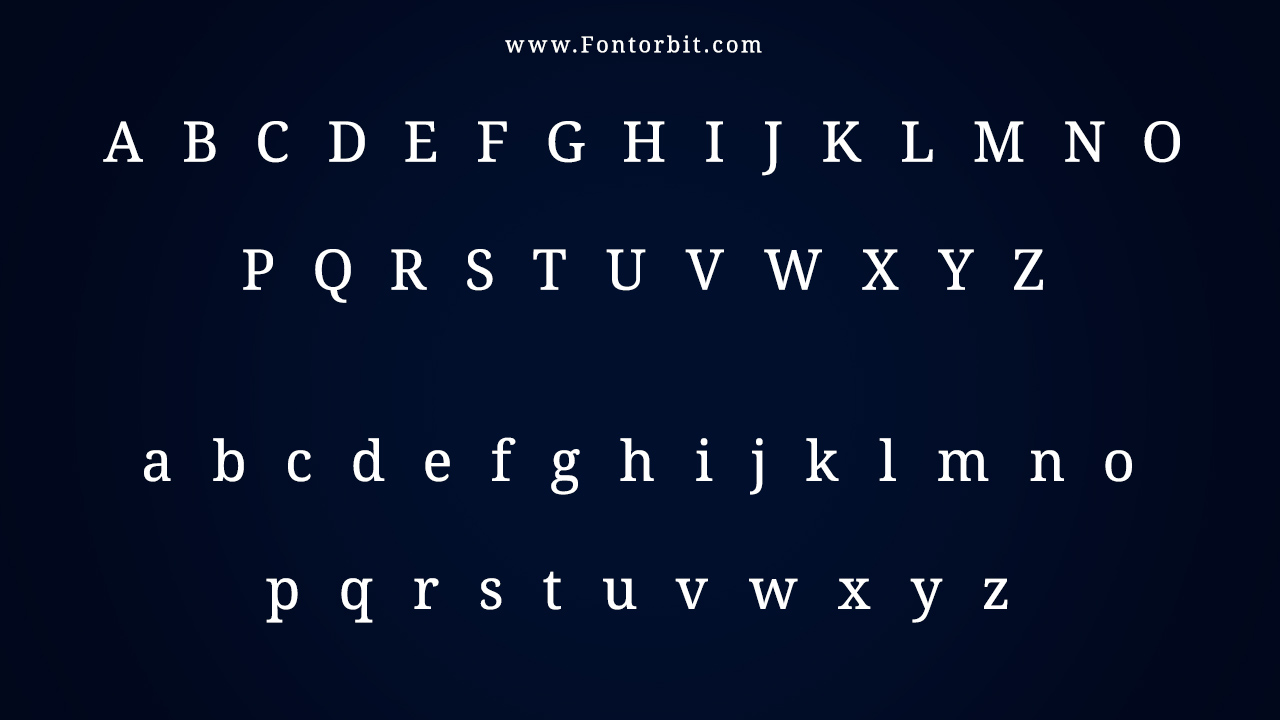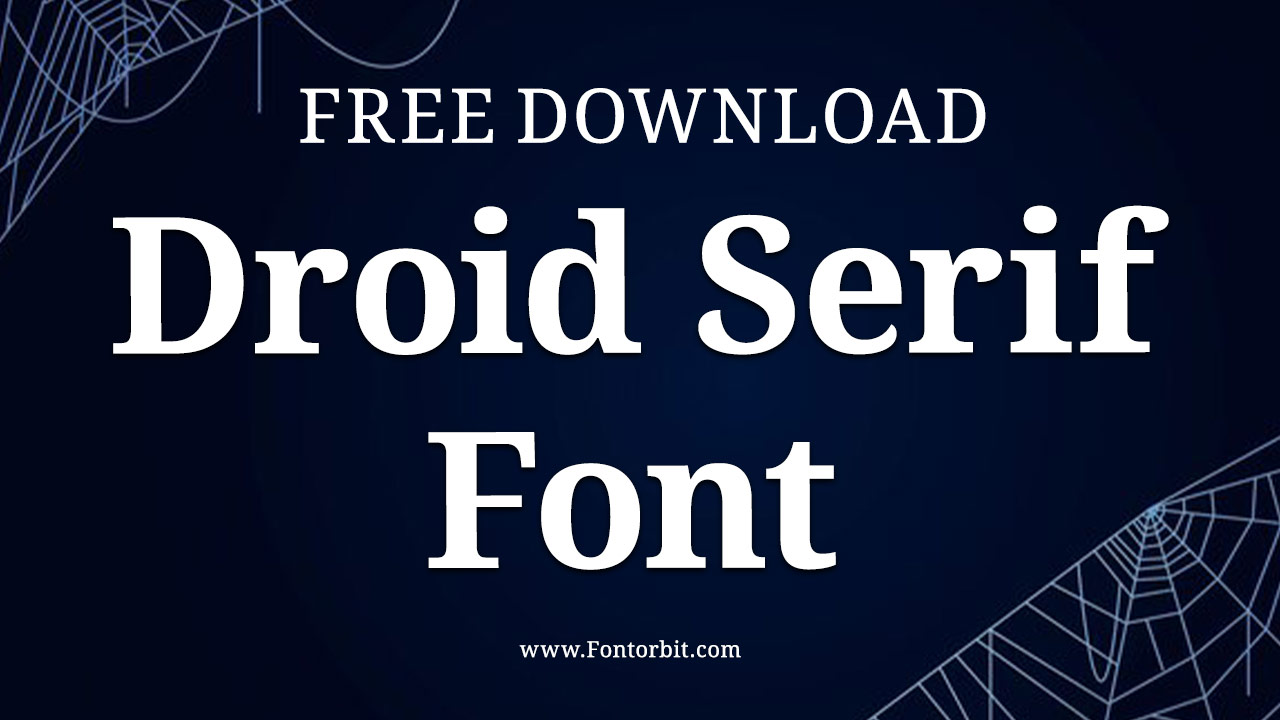
Steve Matteson designed the versatile serif typeface Droid Serif, which Ascender Corp published in 2009. He crafted it to be easily readable on screens while maintaining a classic serif feel. As part of the Droid font family, it serves a variety of applications, from digital content to print media.
Droid Serif Family Includes
Droid Serif is available in a range of weights and styles. The font family includes:
- Droid Serif Regular
- Droid Serif Italic
- Droid Serif Bold
- Droid Serif Bold Italic
Notable Uses Of Droid Serif
Designers commonly use Droid Serif in various digital and print contexts, including:
- E-books and digital publications
- Academic papers and journals
- News articles and blogs
- User interfaces and app design
Droid Serif remains popular for designers and writers who need a reliable serif typeface that combines readability with a touch of elegance. Its broad availability and versatility make it a valuable addition to any font collection.
3.What Are The Main Uses Of Droid Serif?
It is widely used in digital content, print media, academic papers, and user interfaces.